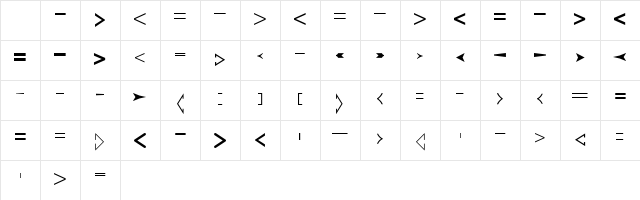
CreativeArrows LT Three Regular Free Font
CreativeArrows LT Three Regular
Designer: Robert Bucan
Design Context for CreativeArrows LT Three
CreativeArrows LT Three is a composed and adaptable typeface that performs quietly and consistently across a wide range of design contexts. Its slender proportions lend an understated elegance to any composition.
Pro Tip: Use CreativeArrows LT Three in both headline and body roles to test its range before committing to a single application.